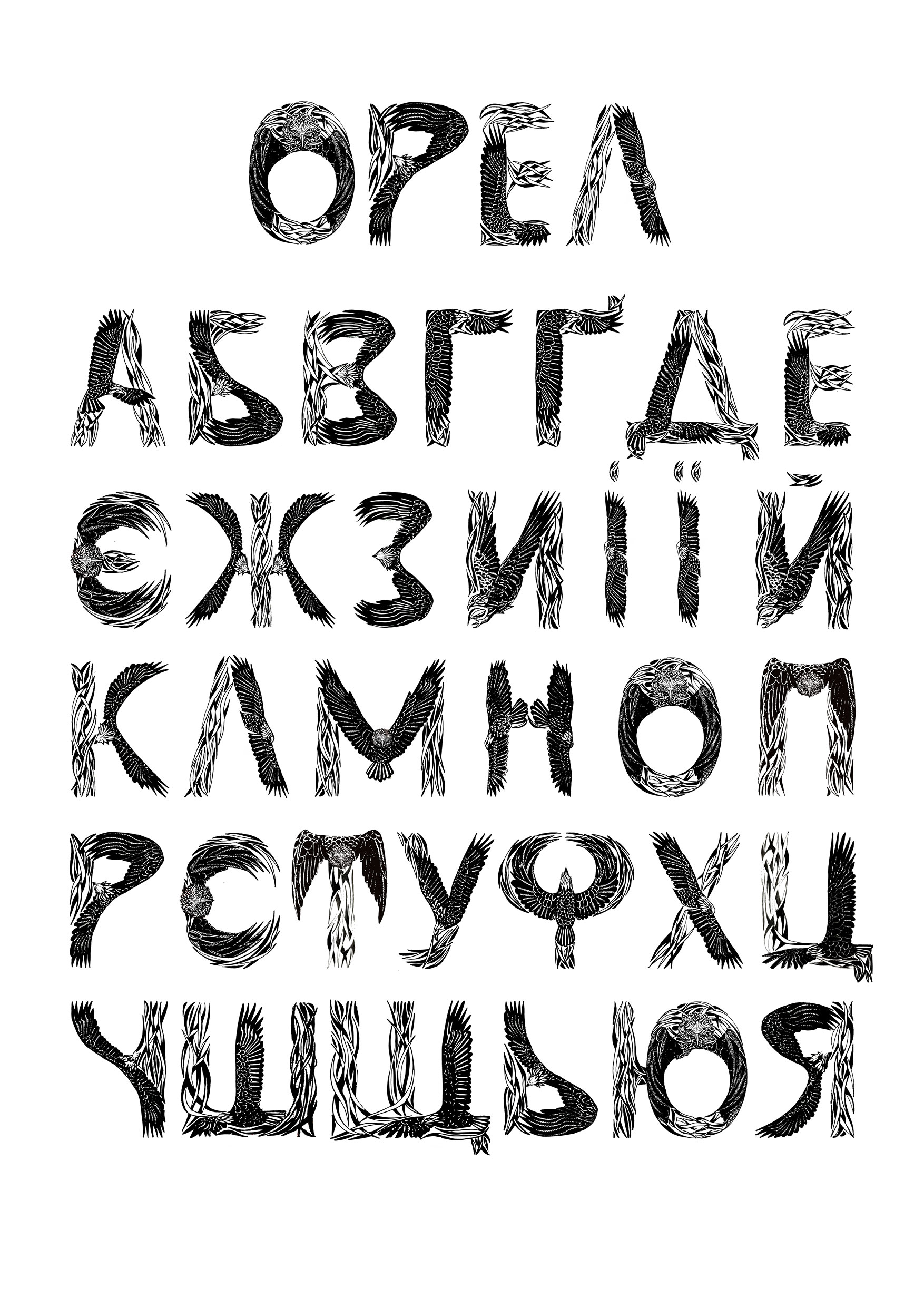
Mariia Sobolieva
Author's accidental font "Eagle"
I developed the author's accidental font "Eagle" which took second place in the international competition "Pangram". I drew everything by hand and edited it on the computer.